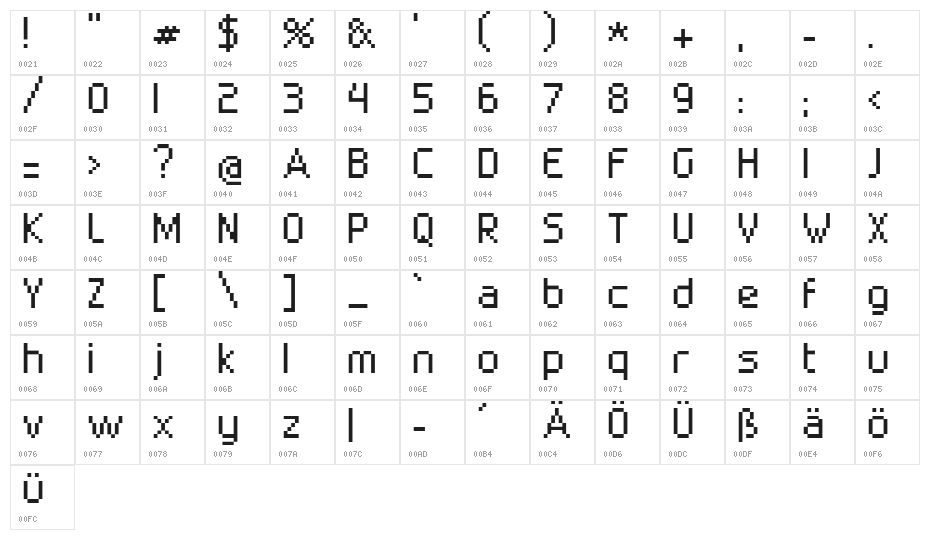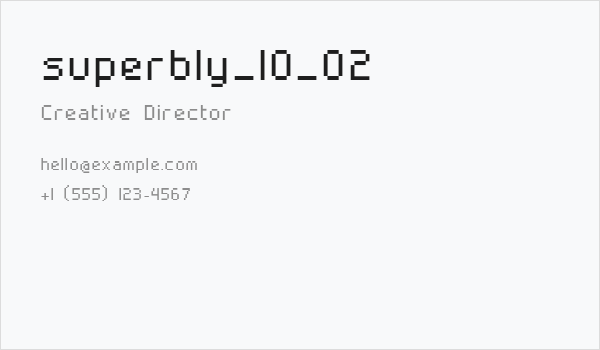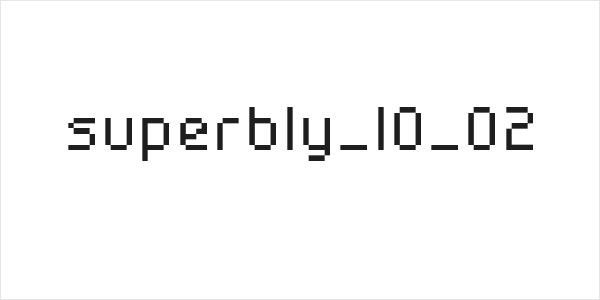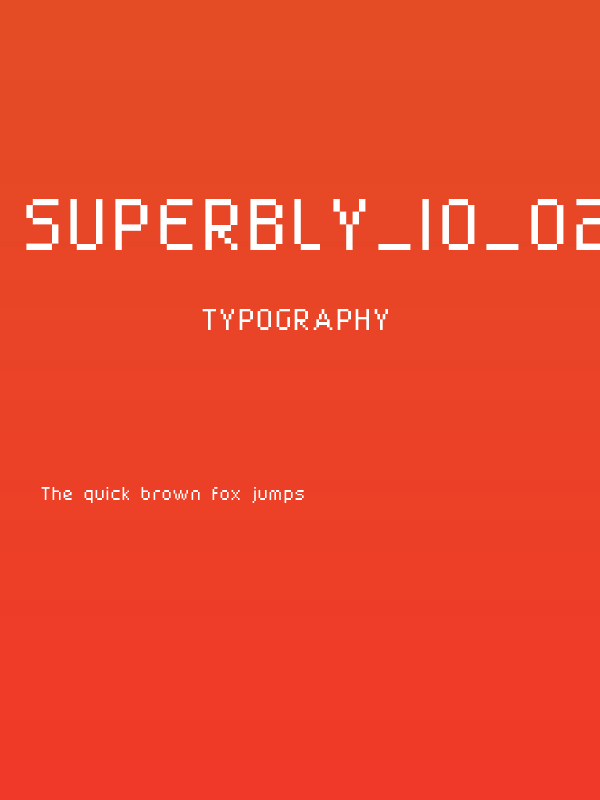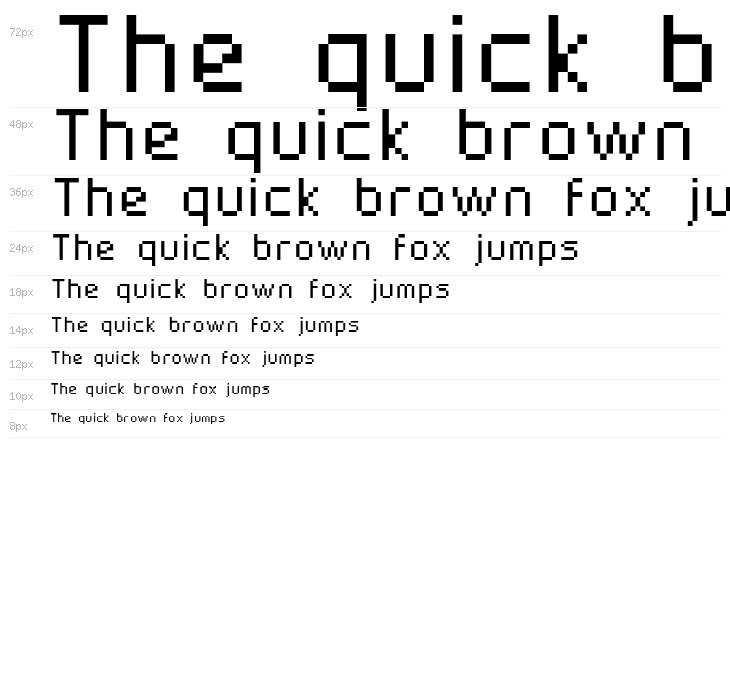
superbly_10_02 Font
superbly_10_02 Description
This font features a pixelated, blocky design reminiscent of early digital displays and retro video games. Each character is composed of uniform square blocks, giving it a distinctly digital and geometric appearance. The uppercase and lowercase letters maintain a consistent height, contributing to a monospaced feel. The numerals and special characters follow the same pixelated style, ensuring uniformity across all glyphs. This font's simplicity and clarity make it ideal for digital interfaces or projects that require a nostalgic, tech-inspired aesthetic.
| Overall Style | Retro, Digital |
| Use Case | Logos, Digital interfaces, Video game text |
| Proposed Projects | Ideal for retro video games, digital displays, tech-themed posters, and pixel art projects. |